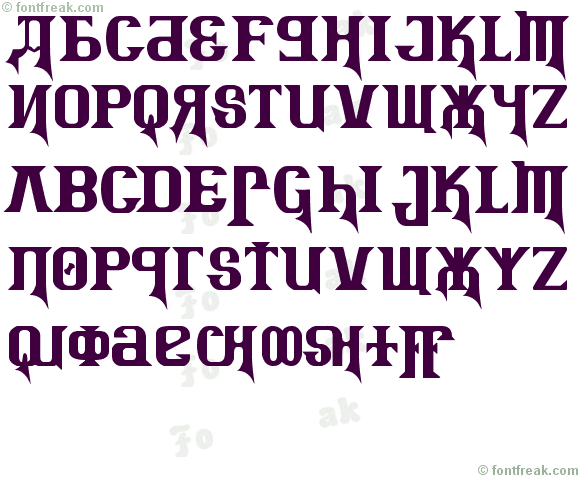
Kremlin Advisor Display Kaps Bold
About Kremlin Advisor Display Kaps Bold
Kremlin Advisor Display Kaps Bold is a striking display font designed by Bolt Cutter, categorized as a decorative typeface. This font features bold, uppercase letters that exude a sense of authority and grandeur, making it ideal for eye-catching headlines and titles. The strokes are thick and pronounced, offering a high contrast that enhances visibility, while the spacing between characters ensures clarity even at larger sizes. The decorative elements, inspired by Russian aesthetics, give it a unique character that stands out in various applications.
This font is particularly well-suited for a range of creative projects. It can elevate the design of movie posters, providing a dramatic flair that captures attention. Additionally, it works beautifully for restaurant menus, where its boldness can highlight special dishes or signature drinks. Graphic designers may find it perfect for branding materials, as it conveys a strong personality that can resonate with target audiences. Furthermore, Kremlin Advisor Display Kaps Bold is an excellent choice for promotional flyers, giving events a distinctive and memorable touch.
What sets the Kremlin Advisor Display Kaps Bold font apart is its commanding visual presence combined with its cultural influence. This unique aesthetic not only captures attention but also evokes a sense of intrigue, making it a powerful tool for any designer's toolkit. For those looking to make an impression, the Kremlin Advisor Display Kaps Bold font free download offers a distinctive option that can enhance any creative endeavor.